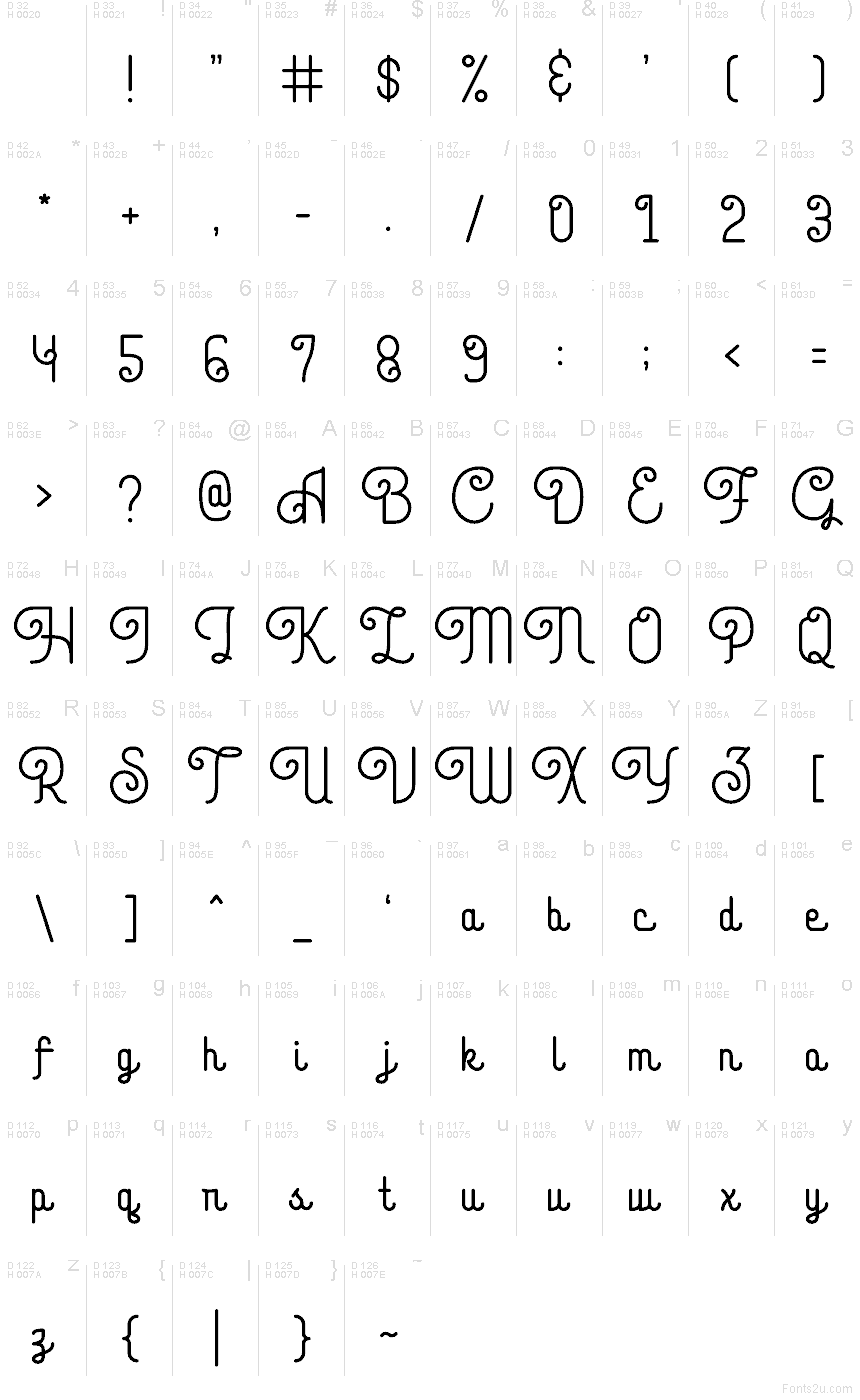
Coklat Sunda
Coklat Sunda font by Graphicfresh is a free curly calligraphy typeface that feels like it’s been piped out of a frosting bag. Its looping strokes, rounded bends, and smooth, even weight give every word a soft, sugary rhythm, like signage from a vintage ice cream parlor. The letters connect in an easy, flowing line, creating a friendly, hand-lettered look that still stays neat and readable at medium sizes.
Using Coklat Sunda, you can instantly sweeten bakery logos, café menus, dessert packaging, kids’ birthday invitations, social media graphics, and playful product labels. This free font shines when you give it room to swirl in headlines or short phrases, then pair it with a clean sans serif for small supporting text. Set it a bit larger than usual, let the curls breathe, and it turns simple words into charming treats.